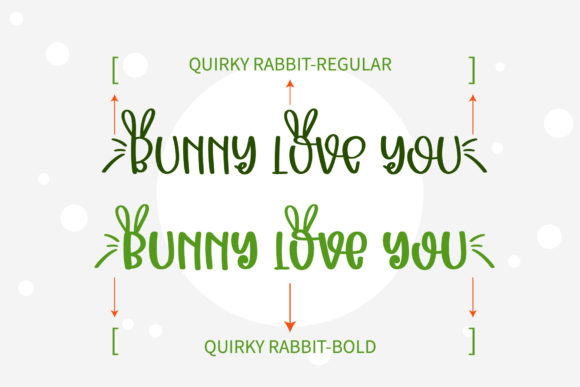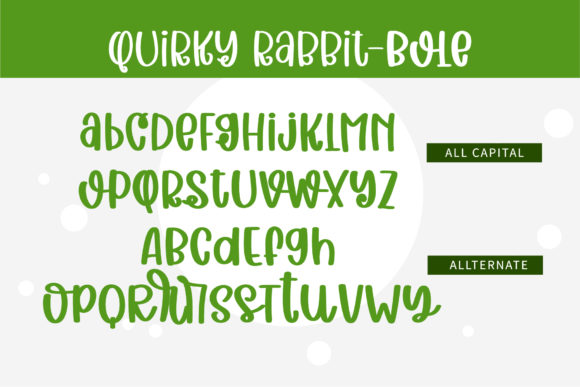
Quirky Rabbit Font
Quirky Rabbit is a cute and friendly display font with a bunny theme. Use it for any design projects that requires a charming appearance!